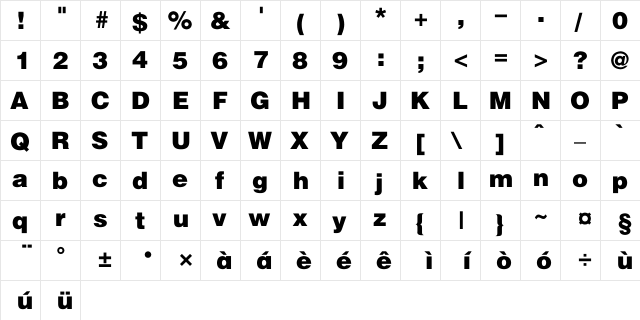
FZChaoCuHei-M10S Regular
Design Context for FZChaoCuHei-M10S Typeface
FZChaoCuHei-M10S takes a measured approach to typography — its balanced proportions and neutral character make it a reliable workhorse for both digital and print work.